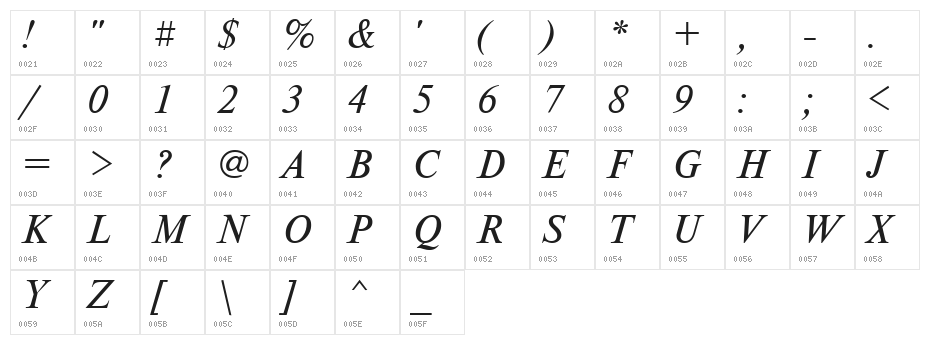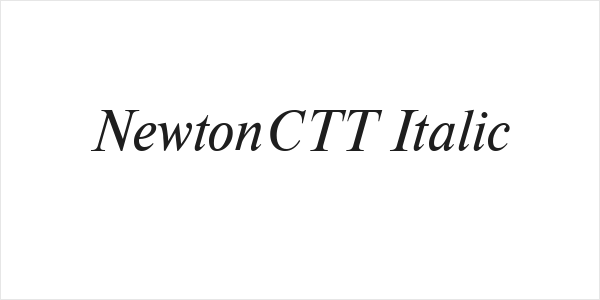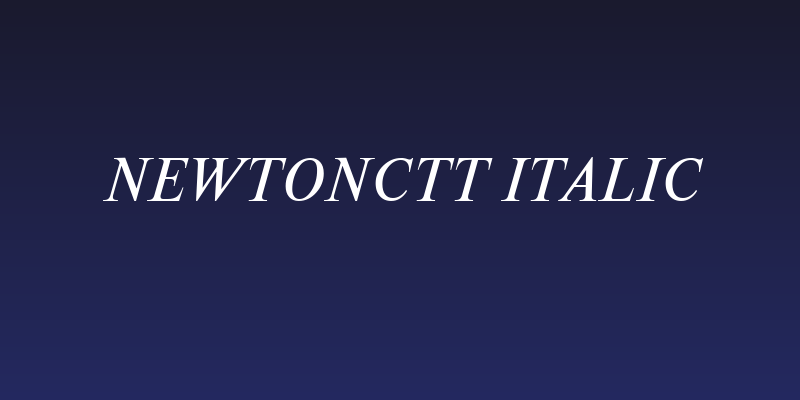
NewtonCTT Italic Font
NewtonCTT Italic Description
This font exhibits a classic serif style with elegant, flowing lines and a distinct italic slant. The characters are well-proportioned, featuring sharp serifs and a moderate contrast between thick and thin strokes. The uppercase letters are stately and traditional, while the lowercase letters maintain a graceful and fluid appearance. The numerals are clear and consistent with the overall style, ensuring readability. Special characters are thoughtfully designed, complementing the alphabetic characters seamlessly. This font exudes sophistication and timeless appeal, making it suitable for a variety of formal and creative applications.